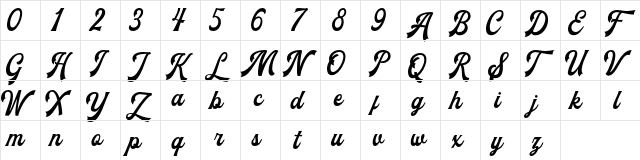
The Blendhes Demo Version Regular
| Foundry | YdhraStudio |
| Designer | Yudha Rahmat Ageng |
Design Context for The Blendhes Demo Version Typeface
The Blendhes Demo Version is a composed and adaptable typeface that performs quietly and consistently across a wide range of design contexts.